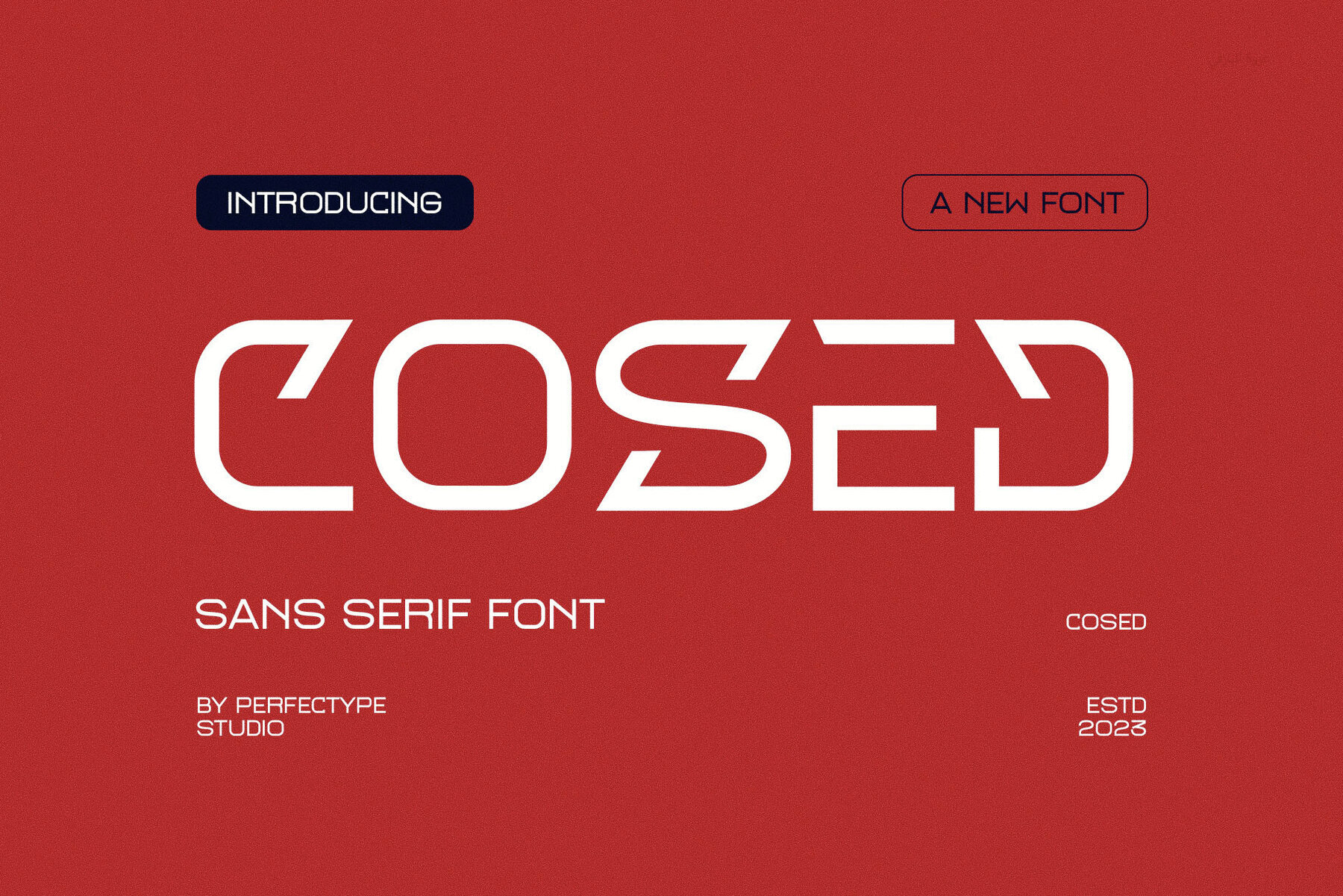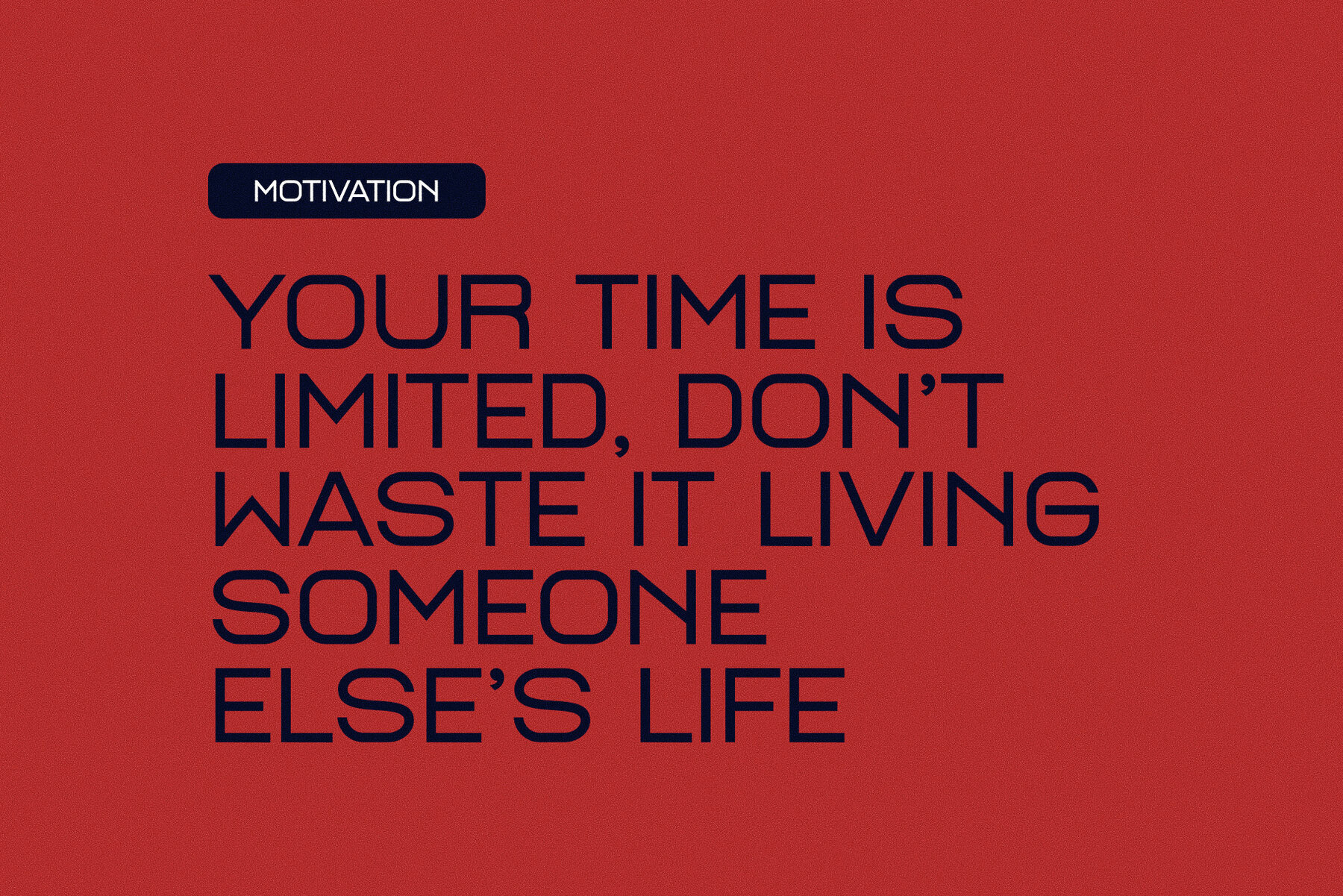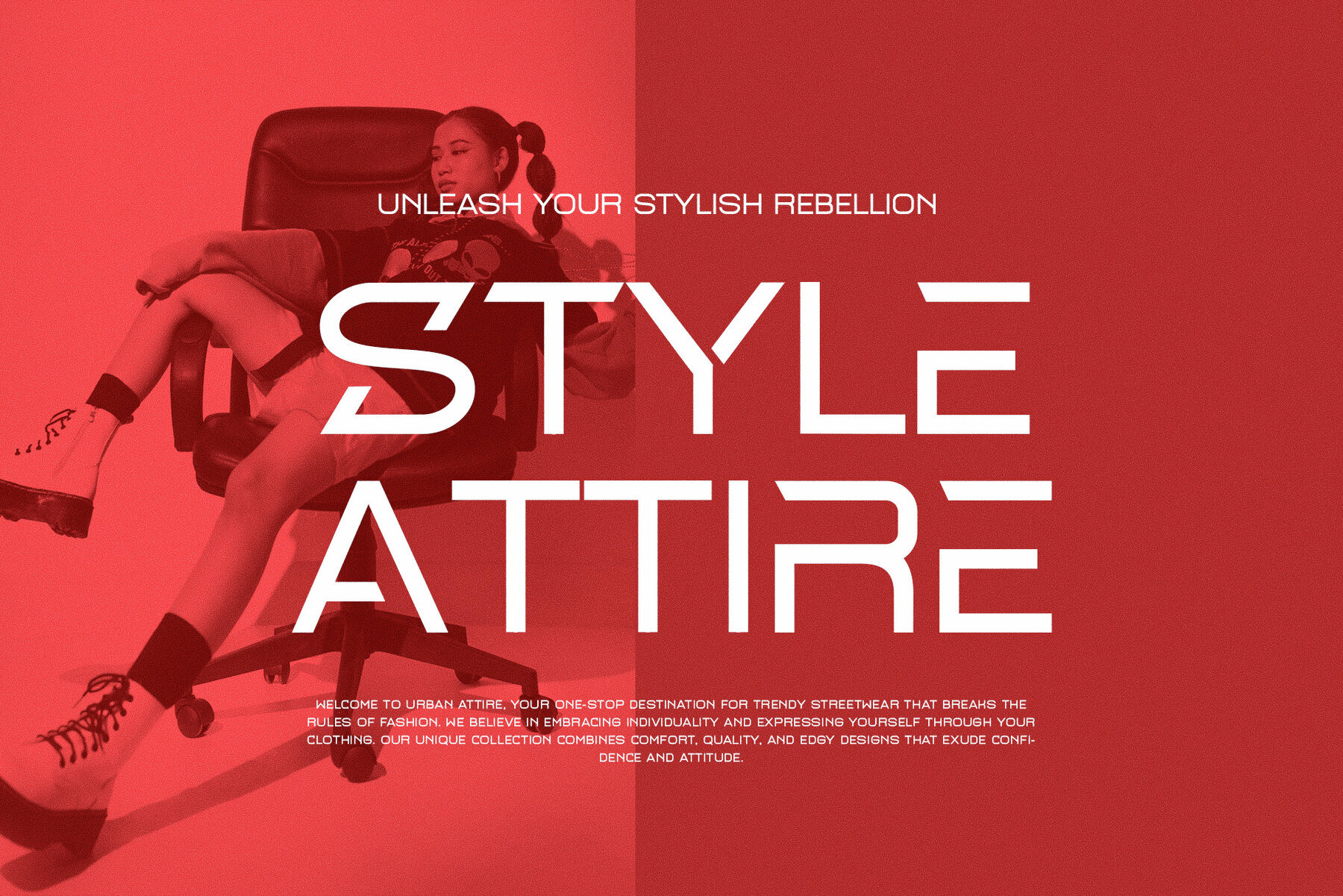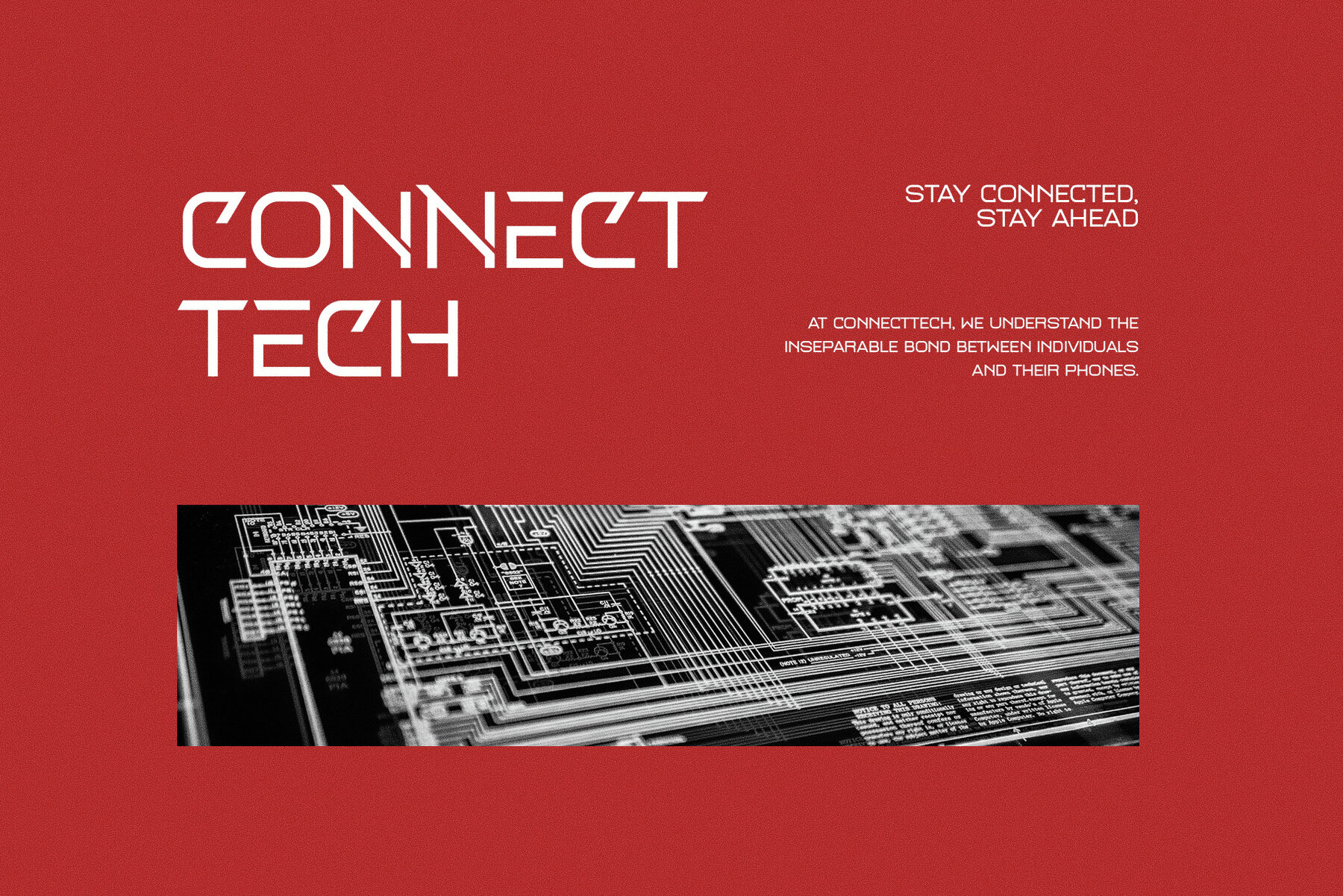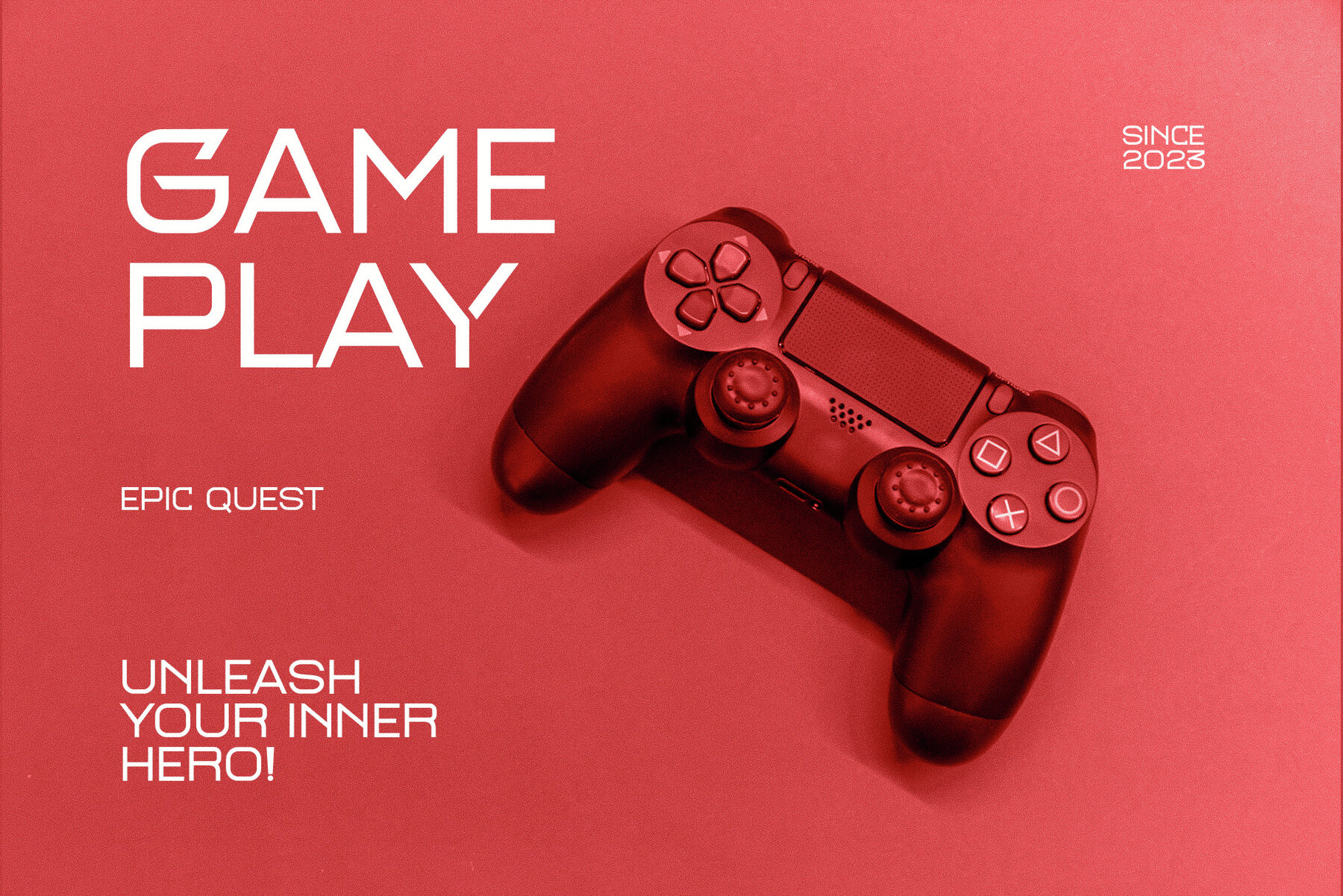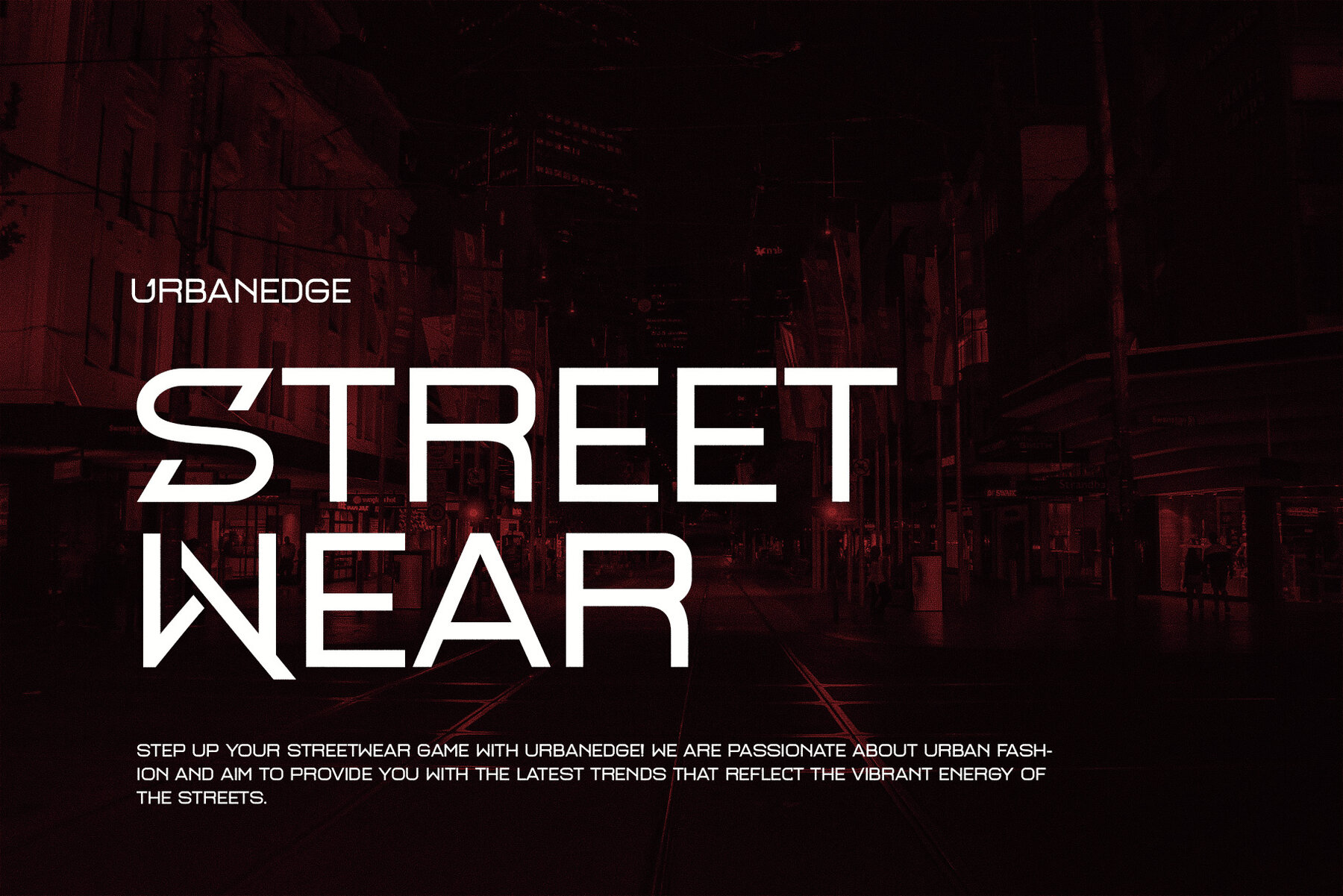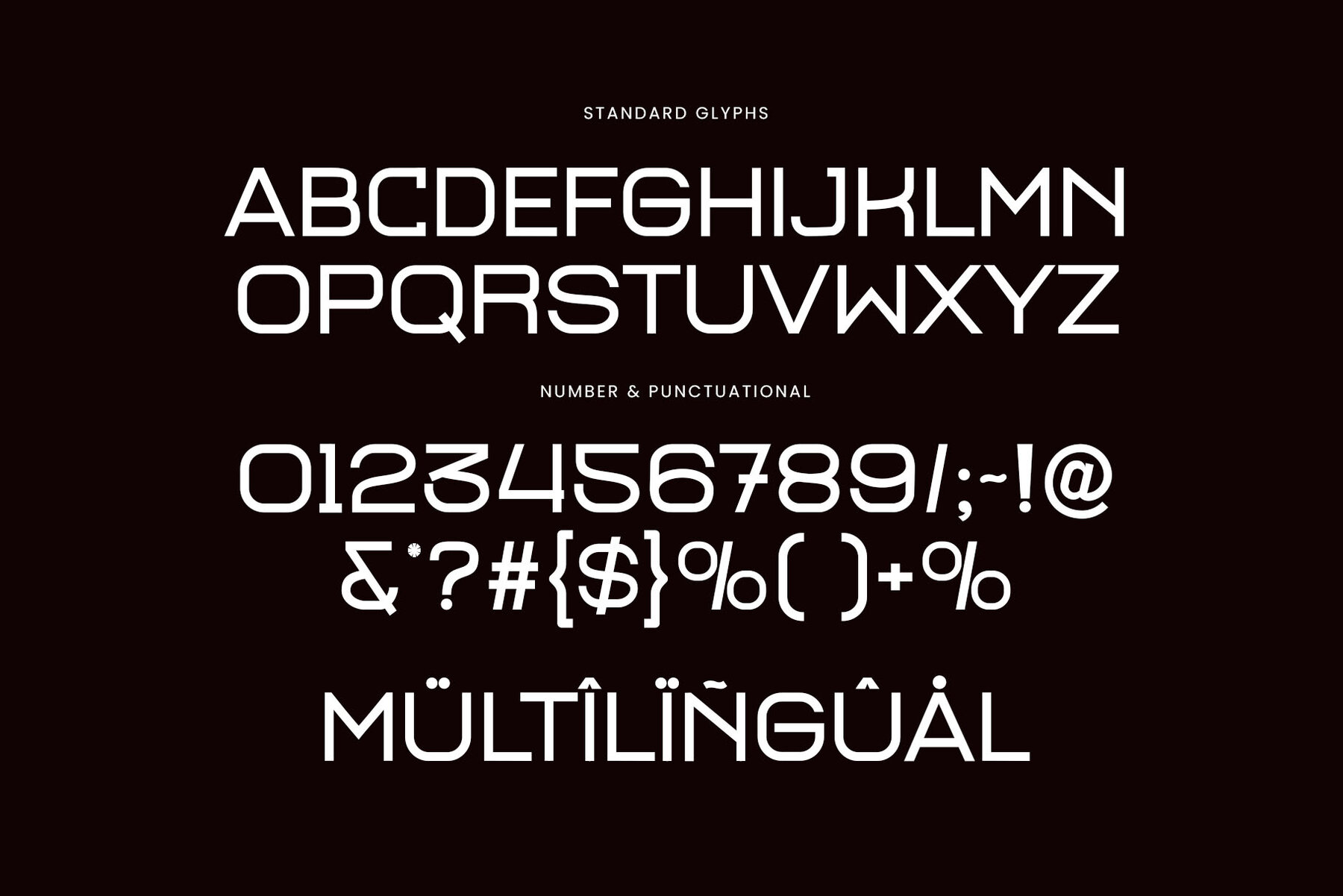
Cosed Font
Cosed Regular
Cosed by Setyo Wati is a balanced and highly readable sans serif font, meticulously designed with a focus on neatness and detail. Ideal for various graphic design projects, it works seamlessly for brochures, videos, brand advertising, logos, magazines, layouts, posters, social media templates, and games. Featuring standard characters, numbers, punctuation, and accented characters for Western Europe, it supports both PC and Mac. This font is optimized for use in Adobe Illustrator and Photoshop.